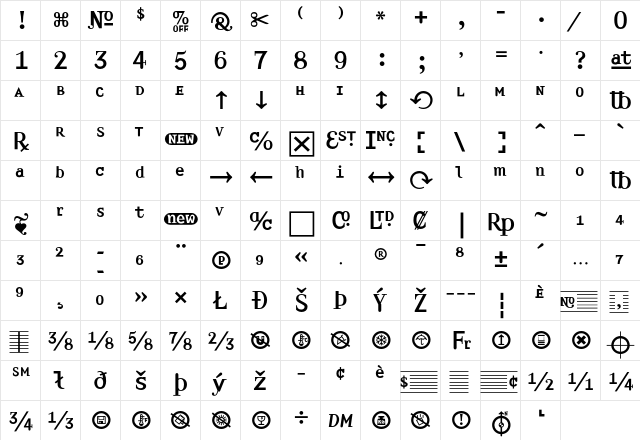
Amplifier LightExtensions
Design Context for Amplifier Typeface
Amplifier offers clean, dependable letterforms without strong stylistic allegiance, making it a practical choice for designers who need flexibility. Its slender proportions lend an understated elegance to any composition.